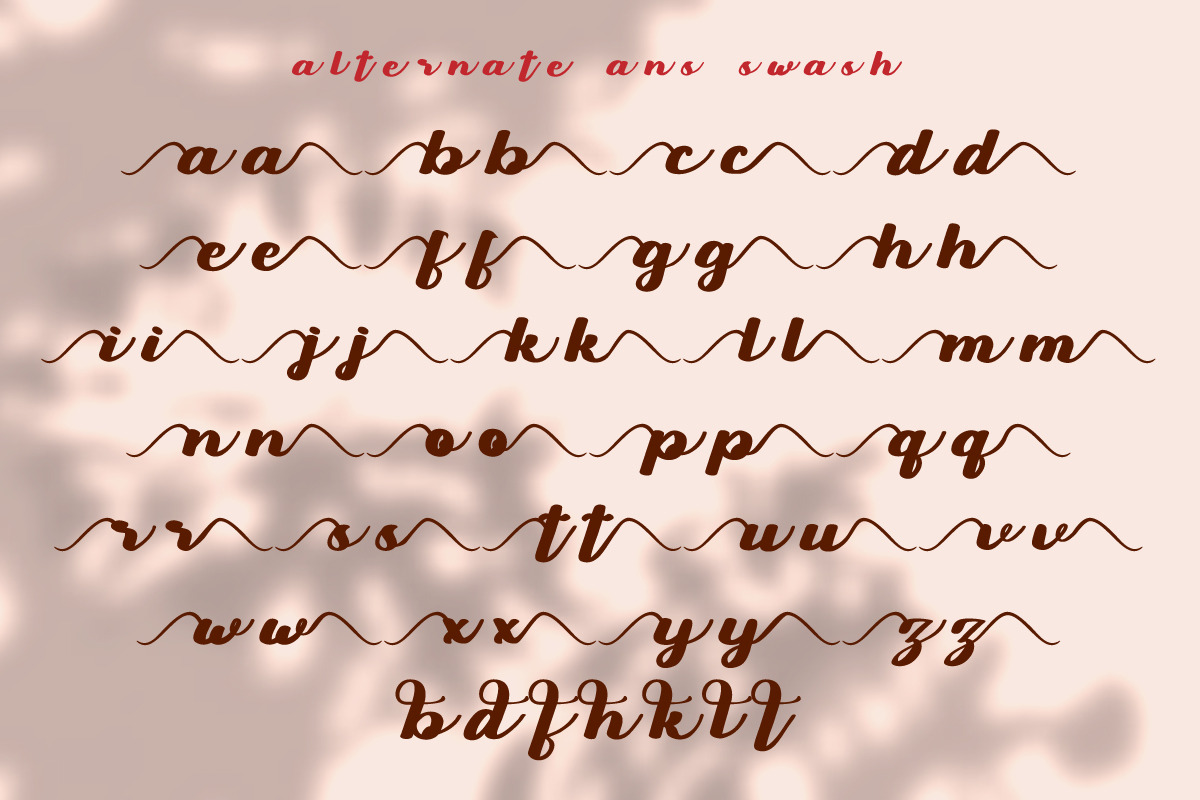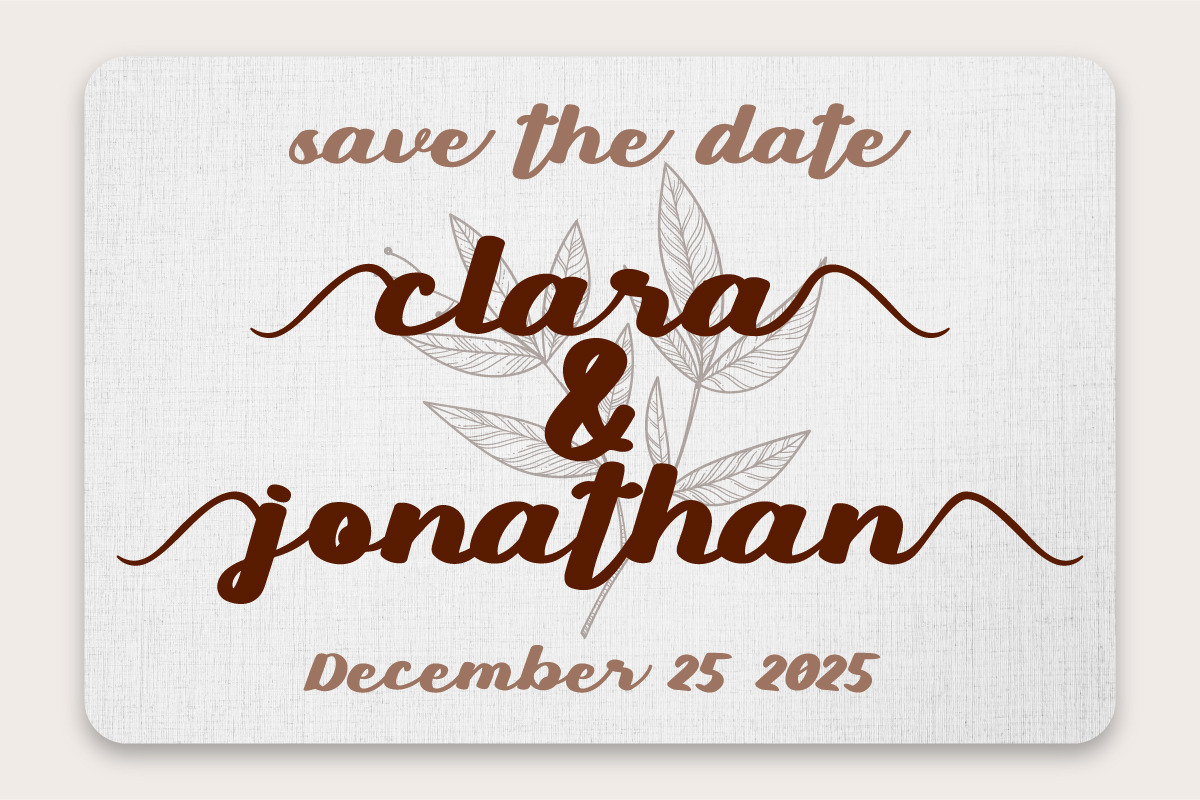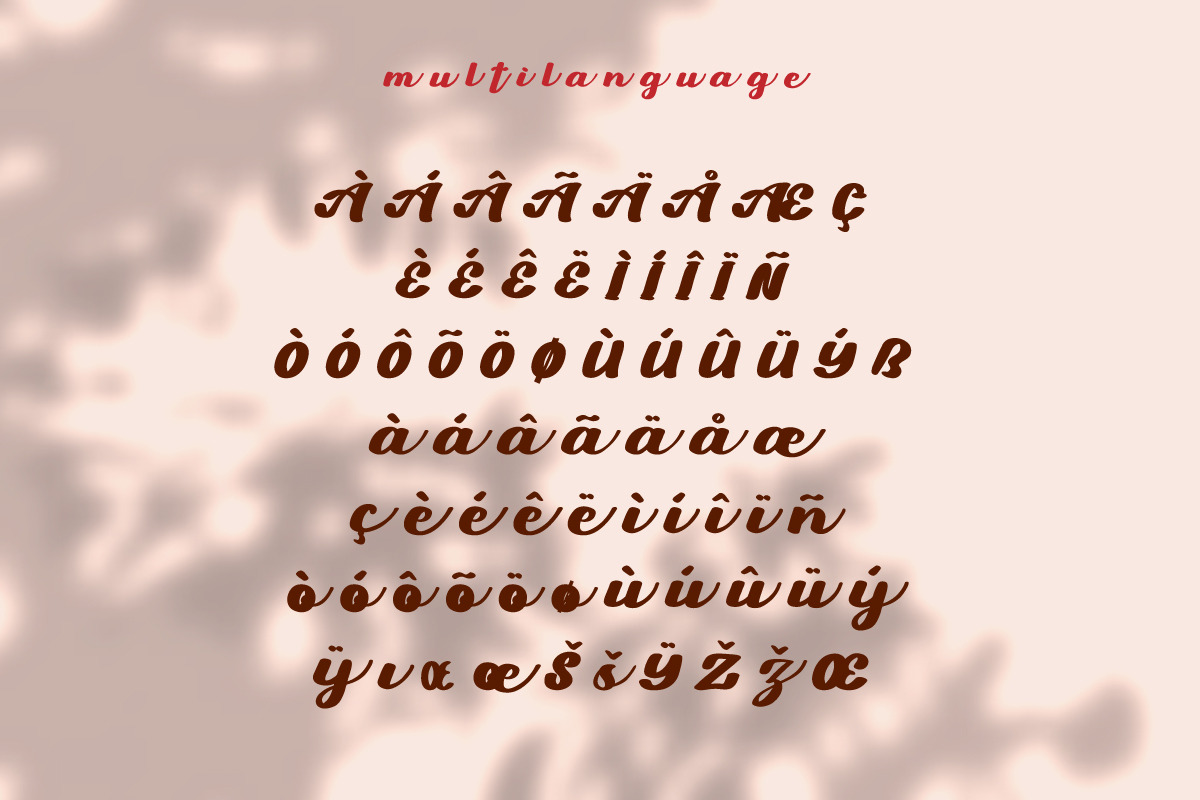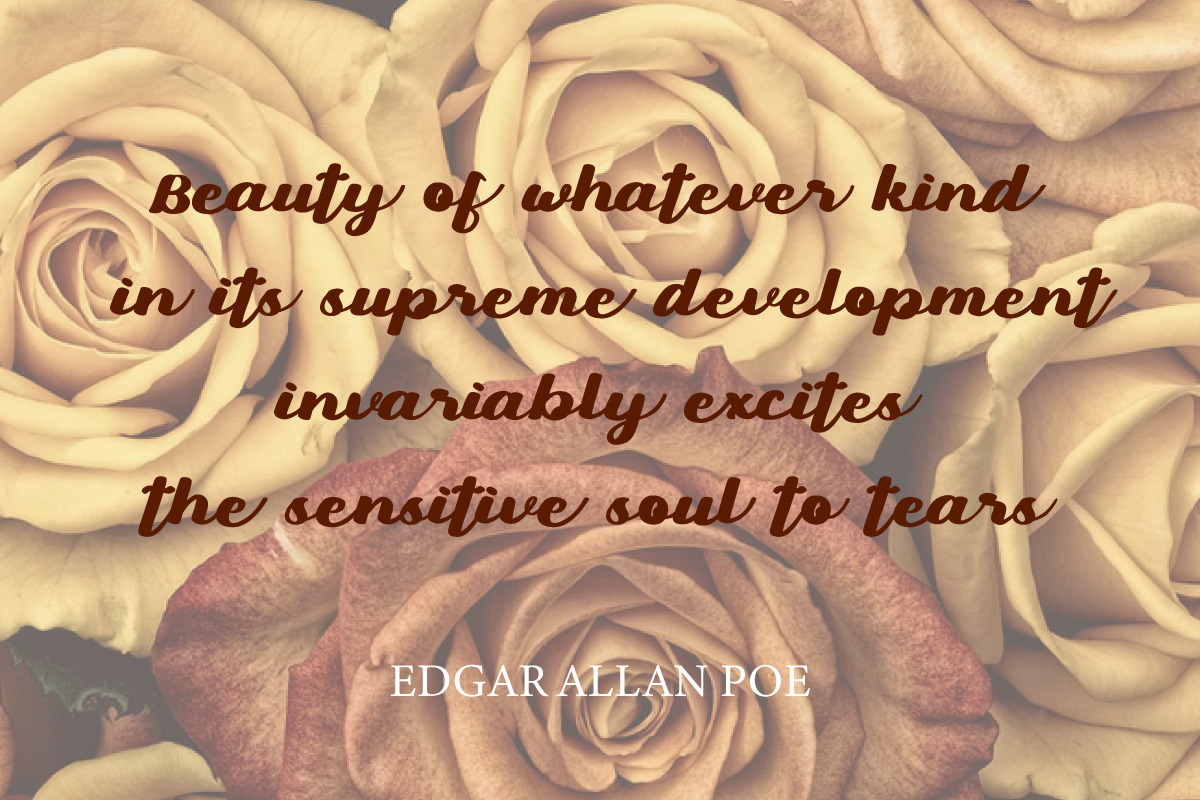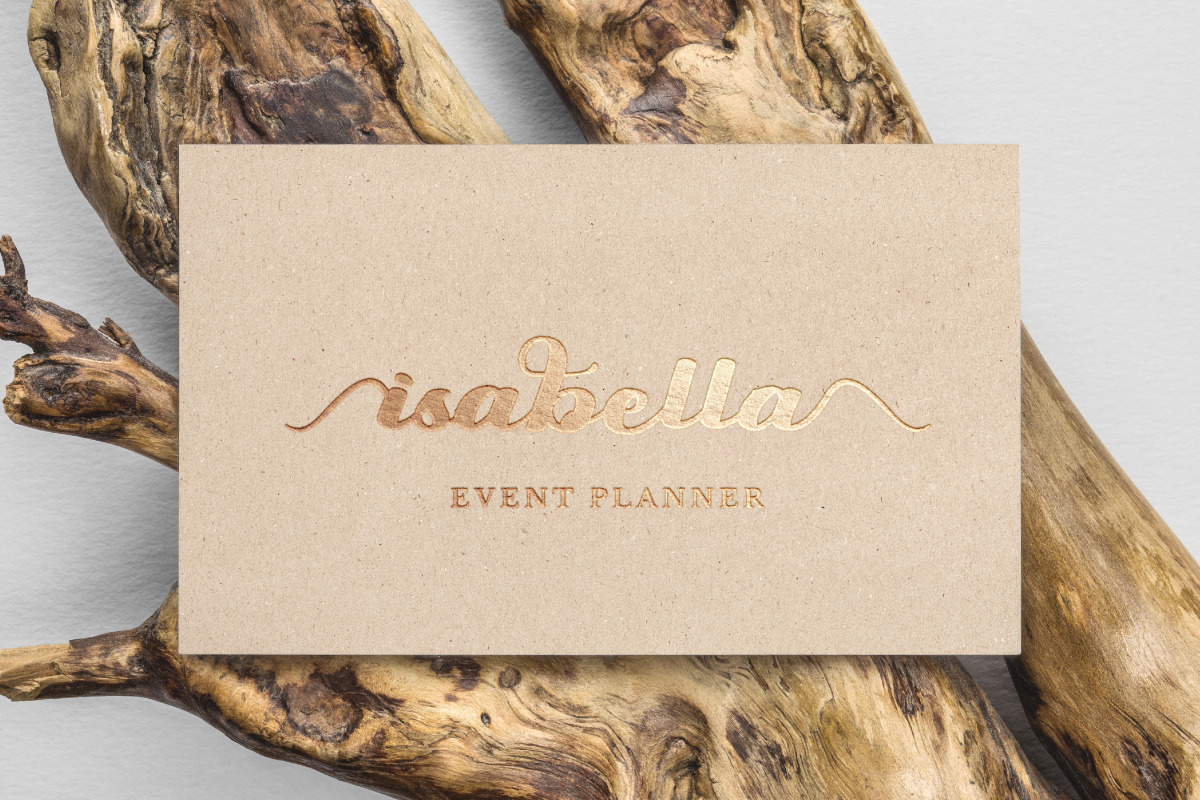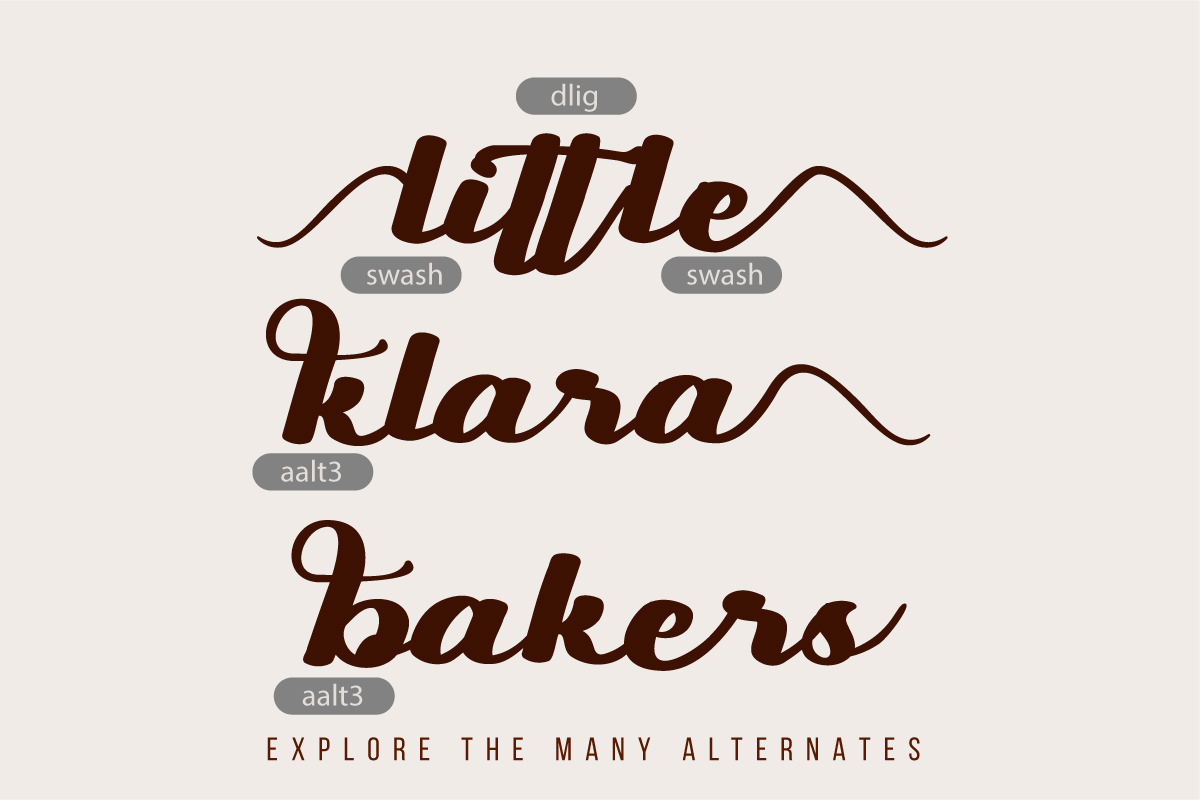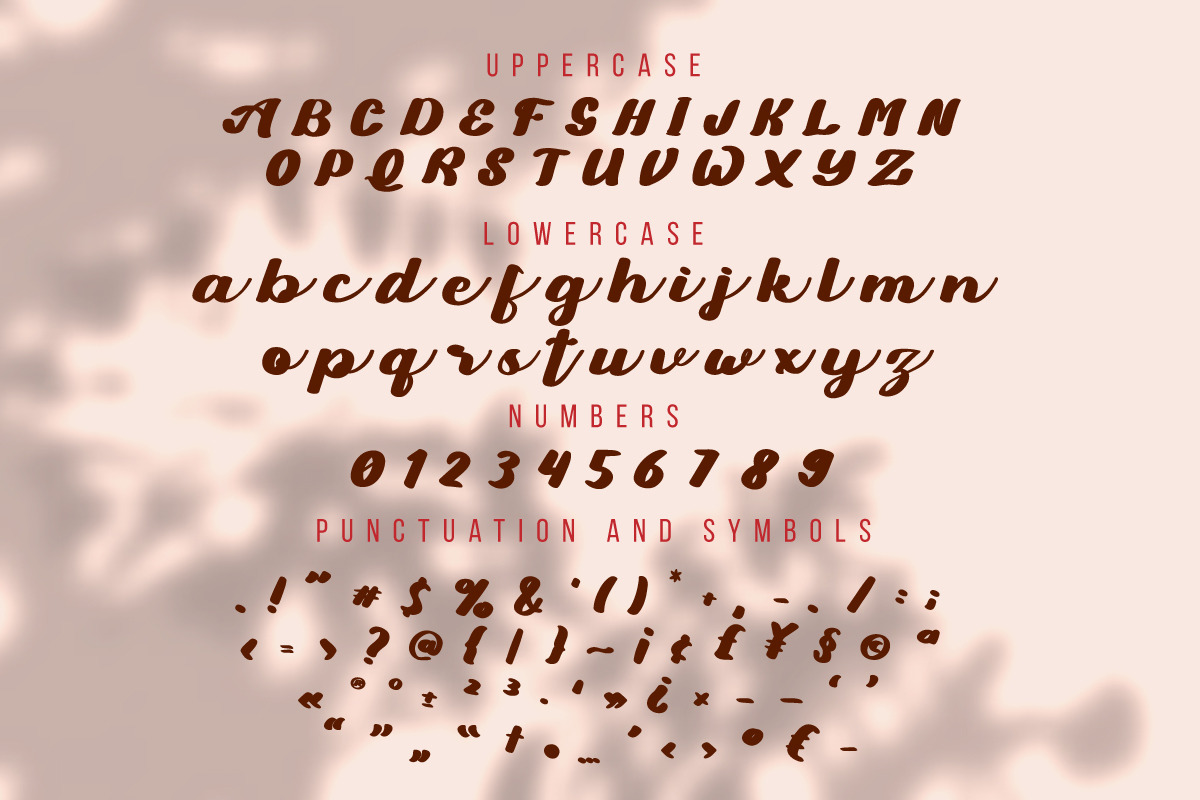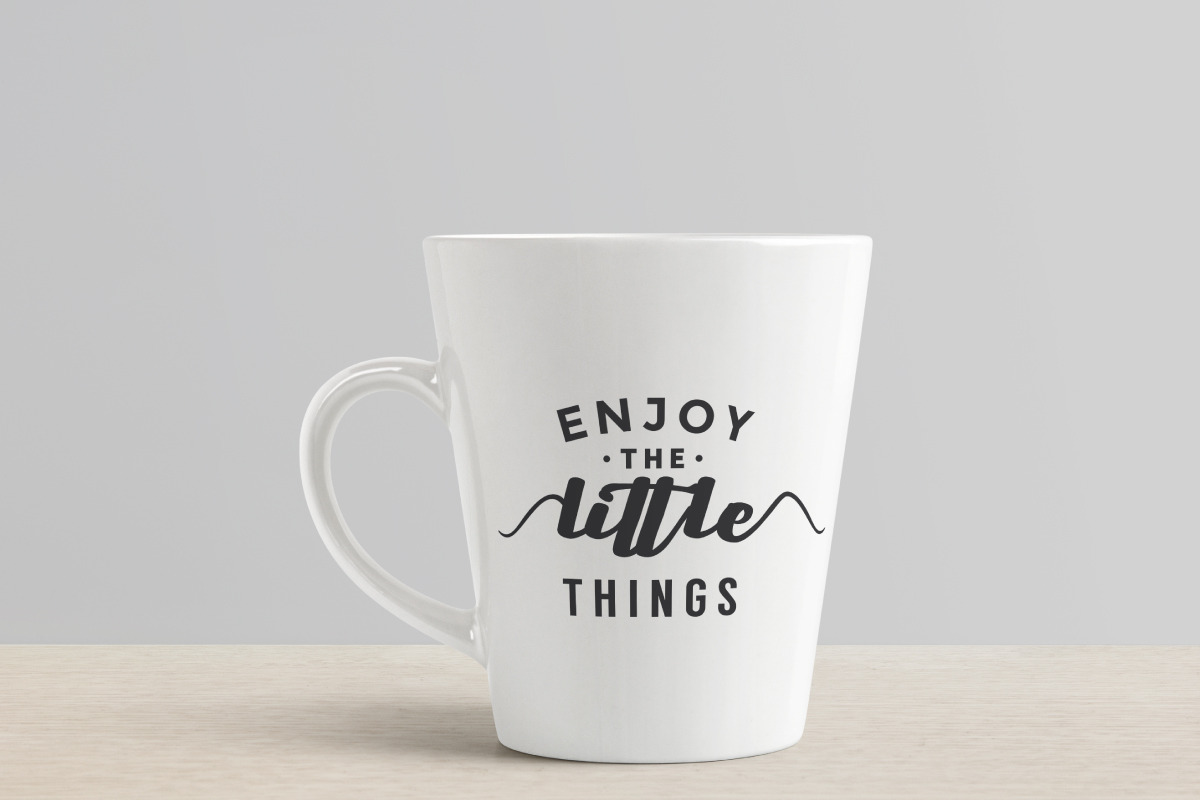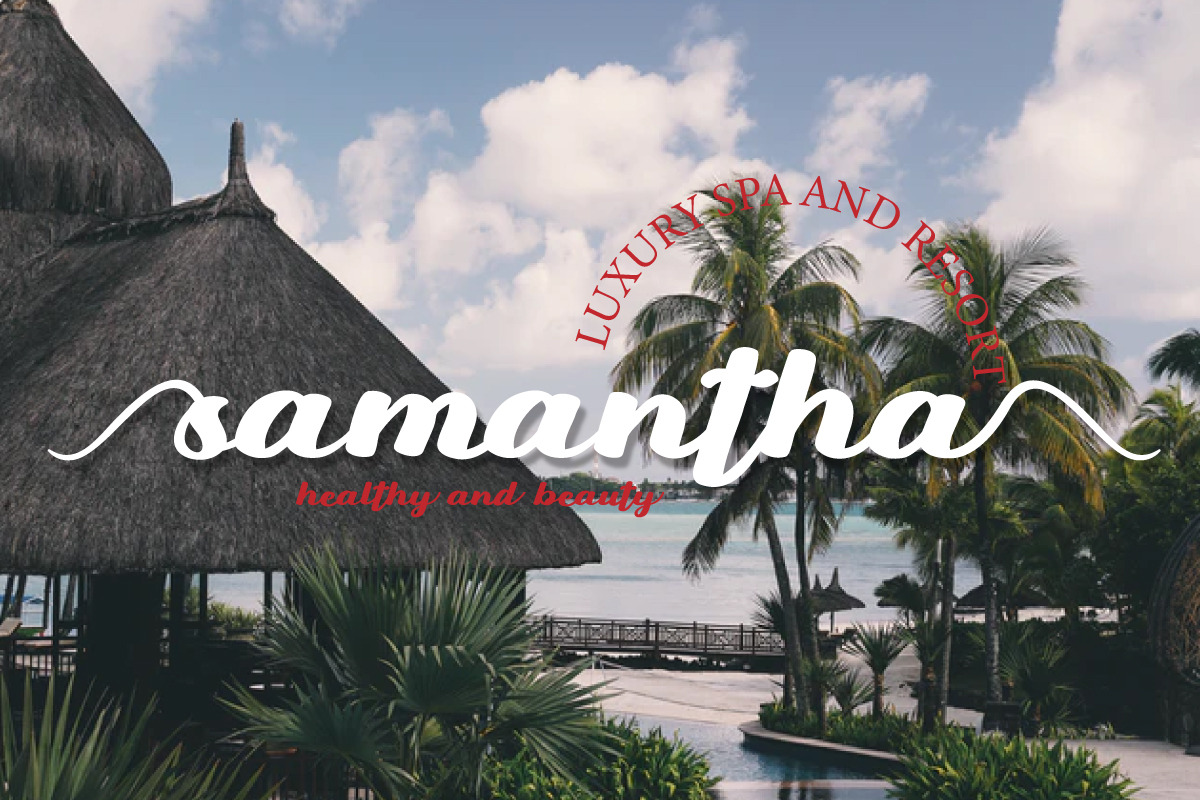
Sodaster
Sodaster is a lovely and delicate script font that exudes elegance and class. This font was particularly crafted for those who need a beautiful and refreshing look to their designs. Sodaster is PUA encoded which means you can access all glyphs and swashes with ease!